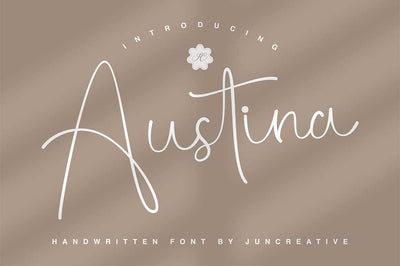
Austina Font
Austina is a elegant thin handwritten font. It has beautiful and well-balanced characters and as a result, it matches a wide pool of designs. Add it to your most creative ideas and notice how it makes them come alive! This font is PUA encoded which means you can access all glyphs and swashes with ease!